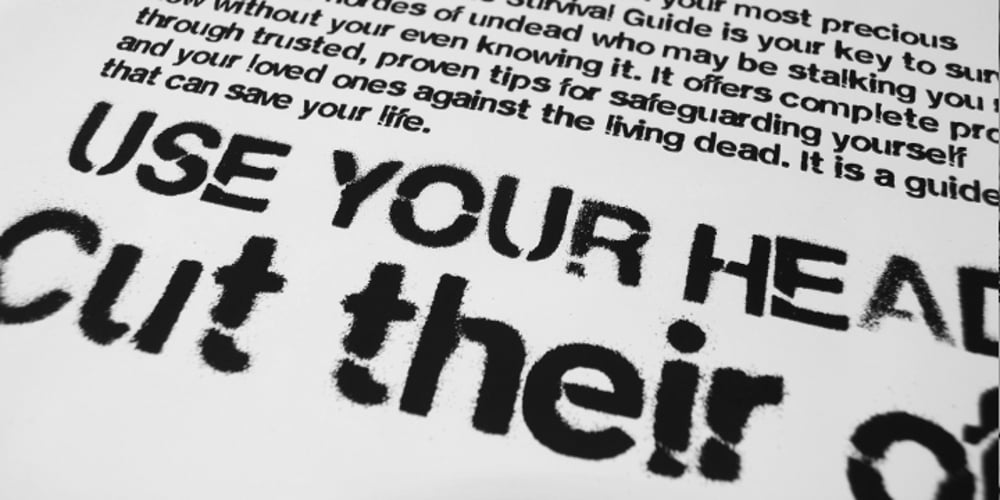
The City Burn
The City Burn font
The City Burn Font Family was designed by Thibault Dietlin and published by Alien. The City Burn contains 1 styles and family package options. The City Burn, formerly called “The city burn night after night and we spray-paint the walls”, was especially designed for Mad Skills Mag issue#3 Urban Flavour. It needed to be street, and urban, so I made a stencil font. It’s used by Fox5 tv for the rant TV show, the website infected.com, Fried chillies TV, and others!